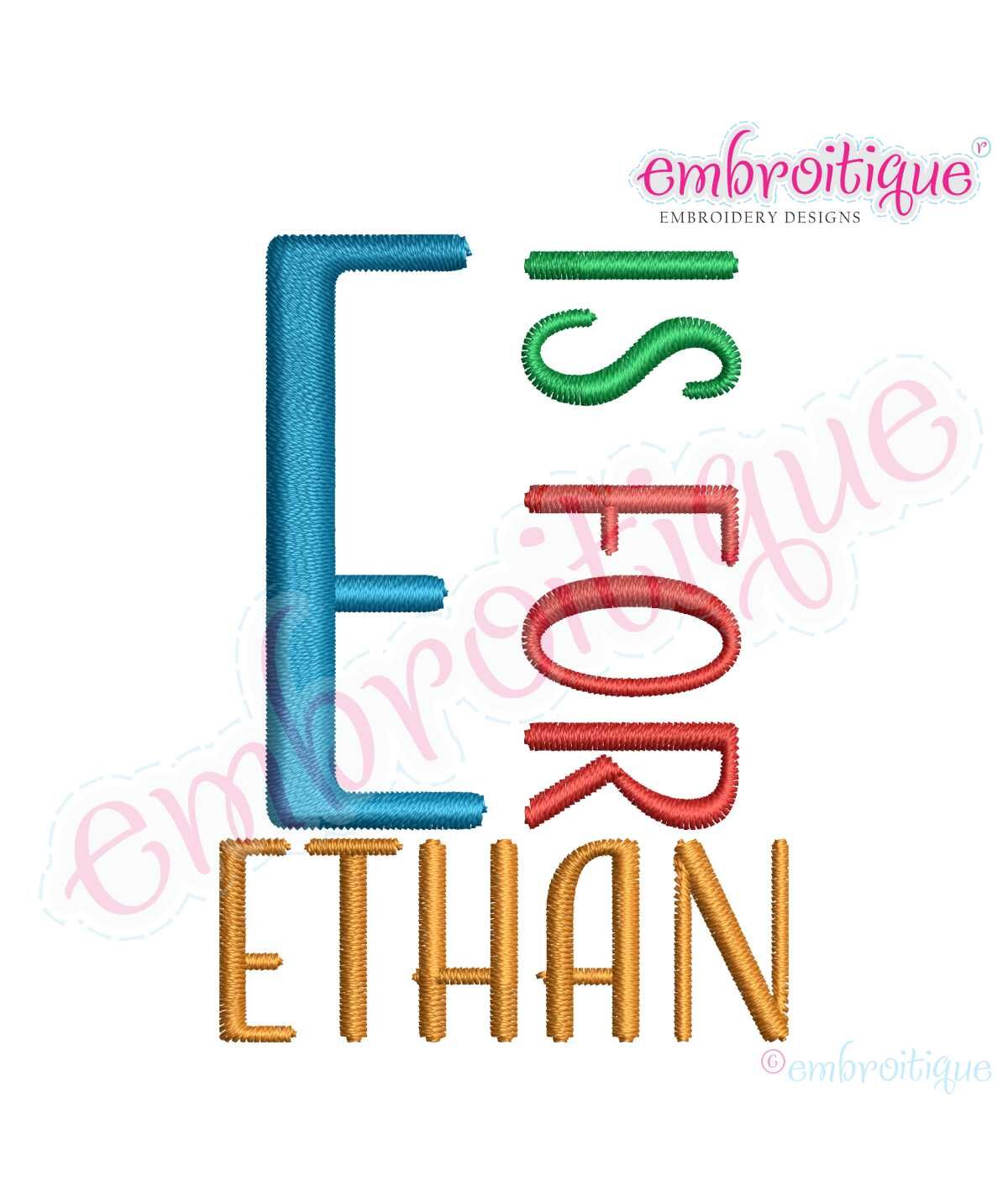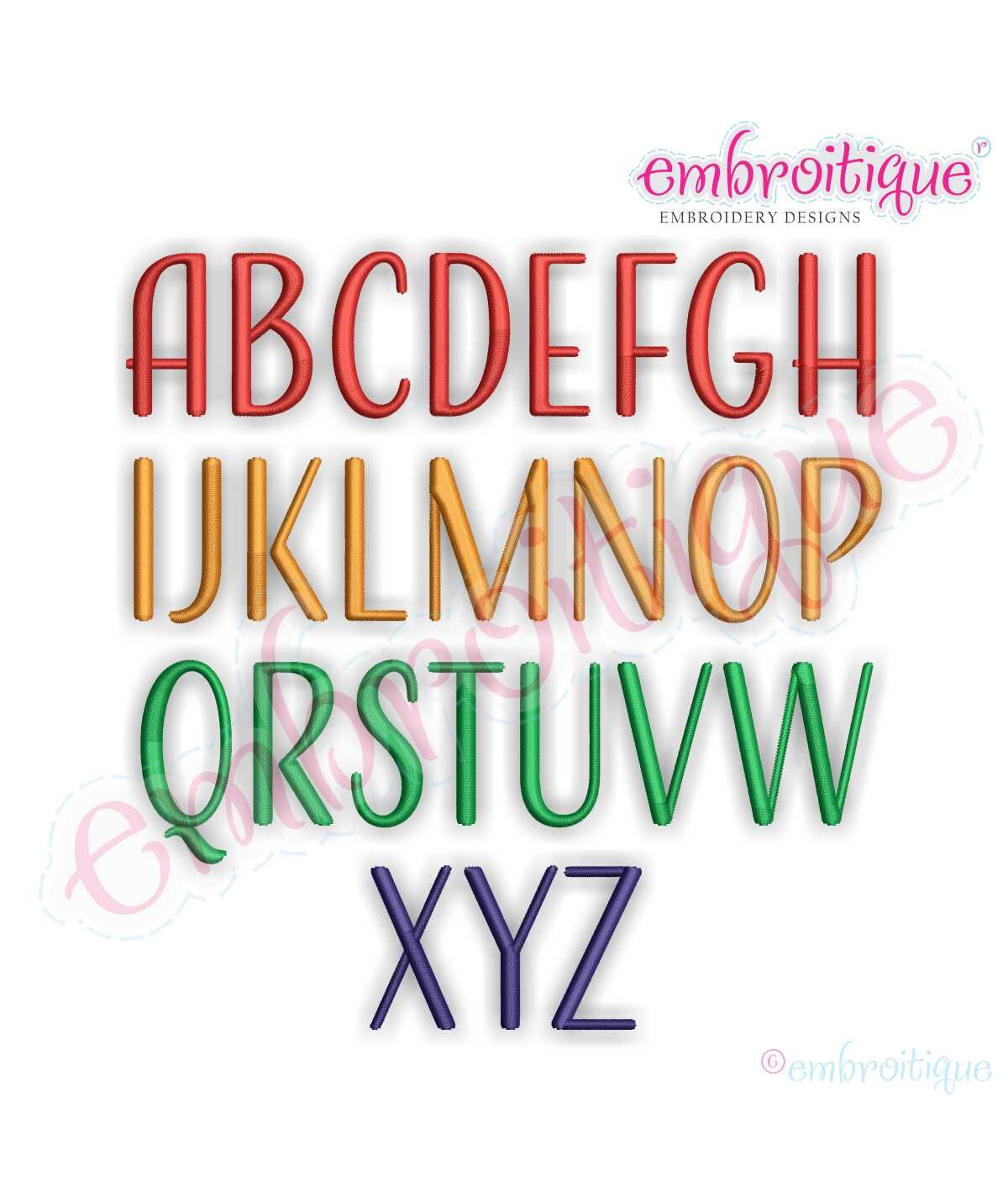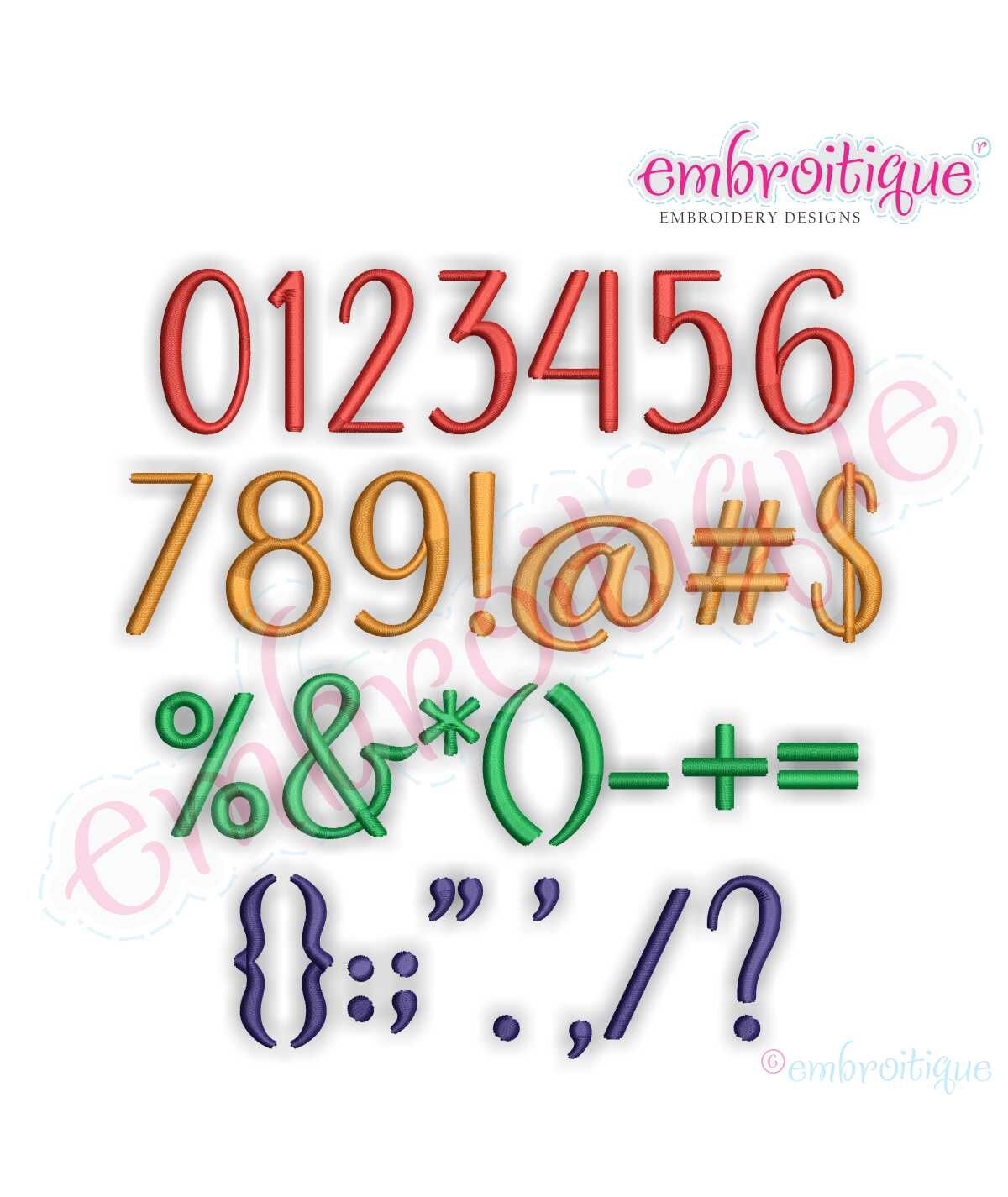
Ethan Monogram Set - small
We love the versatility of this alphabet, and know that you will too. This works
perfectly for men, women, boys & girls! You will receive A-Z, numbers, and
We love the versatility of this alphabet, and know that you will too. This works
perfectly for men, women, boys & girls! You will receive A-Z, numbers, and
Stitch Type: Satin Stitch